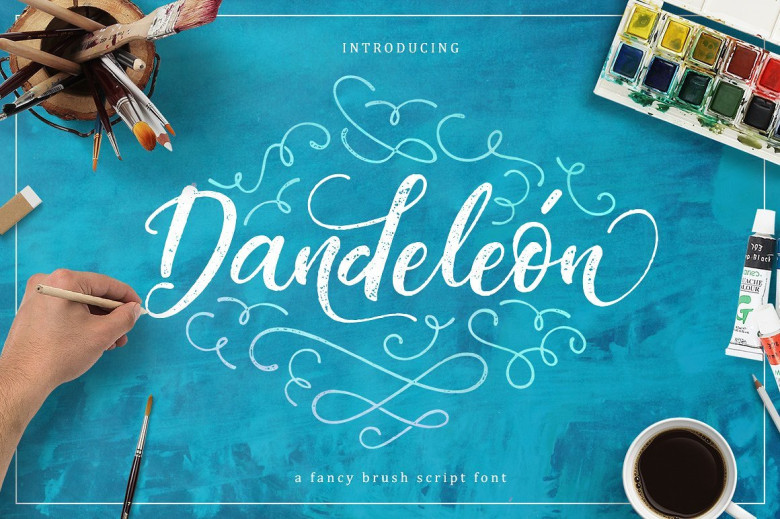
Dandeleon Brush Script Font
Say hi to beautiful hand made brush script Dandeleón font, a modern typeface with an authentic rough ink version and a clean pure! Simple as possible to use, just type your text and it comes up perfect.